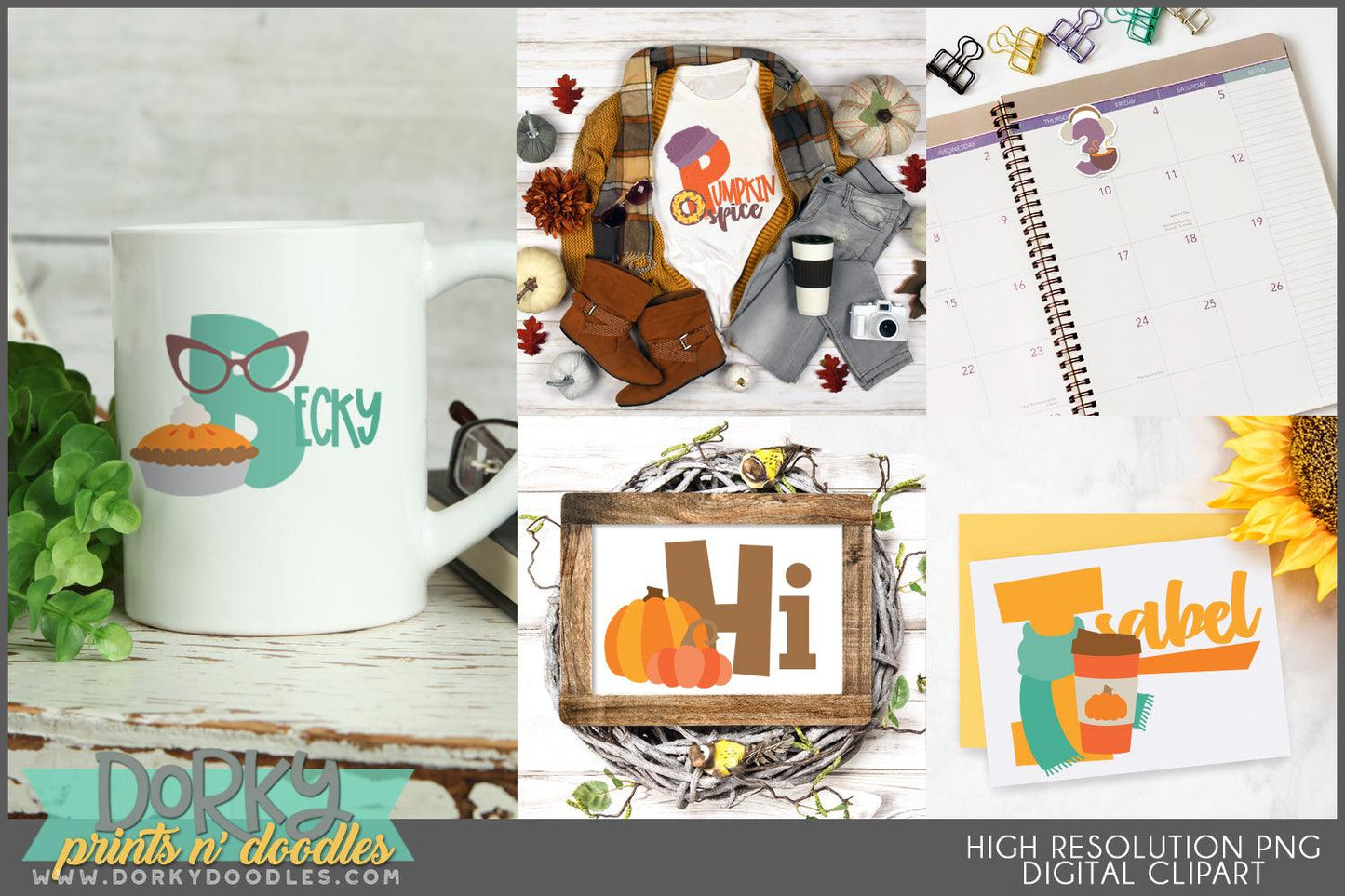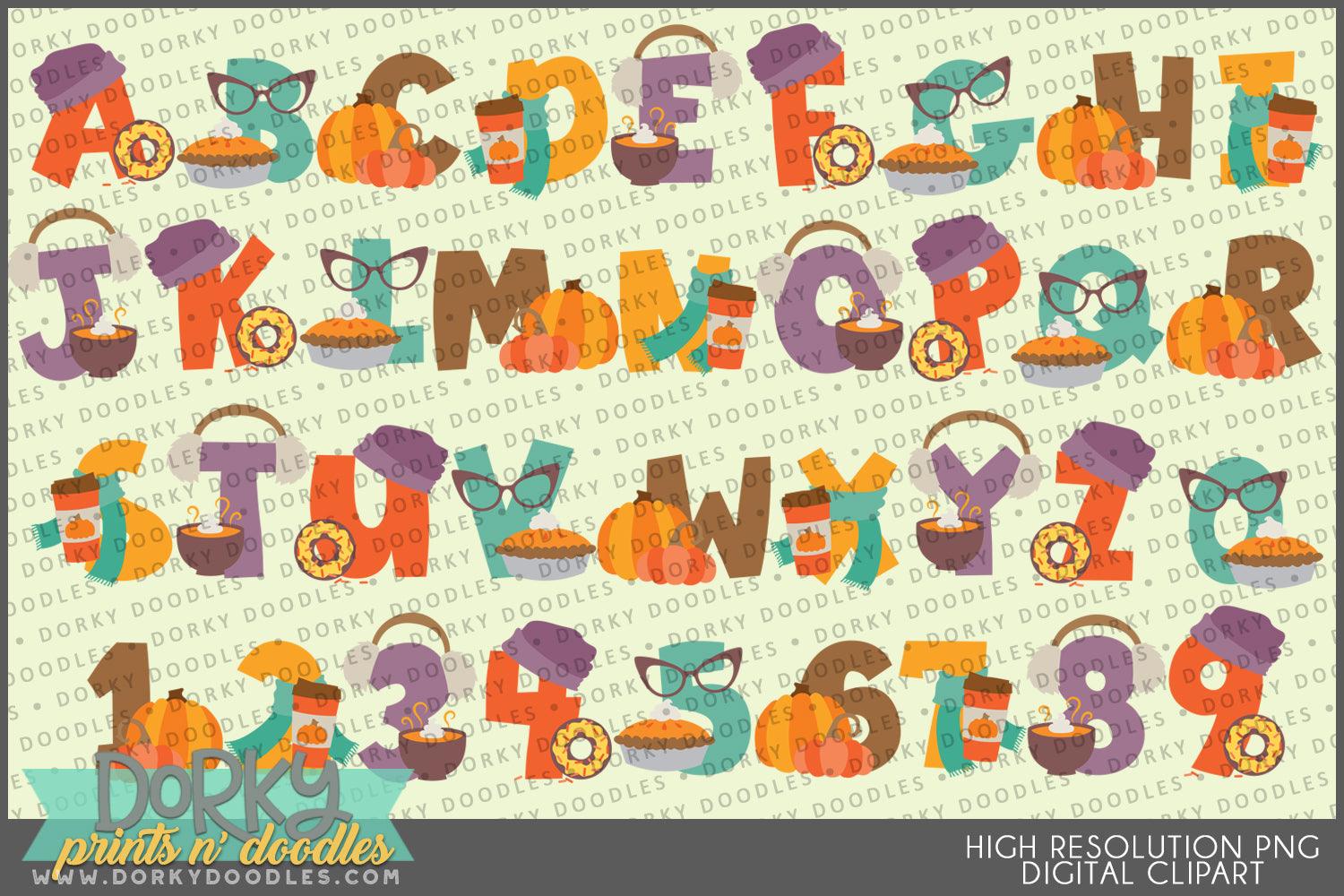
Pumpkin Spice Alphabet Clipart
With this set you get the following images:
• letters A-Z featuring pumpkins, pie, donuts, lattes, scarves, and hats
• numbers 0-9 featuring fun fall and pumpkin spice objects